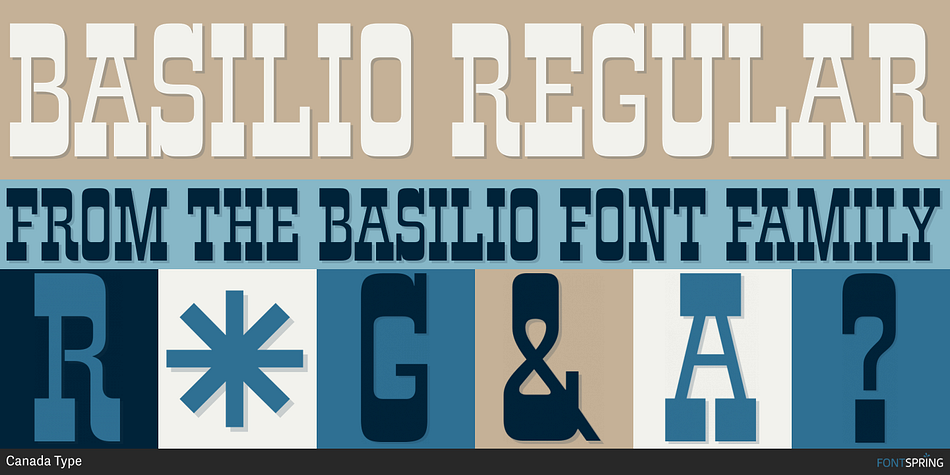
BASILIO REGULAR
Designed by Hans van Maanen and Stefan Schlesinger, Basilio is a western and wood type font published by Canada Type.
In the late 1930s, old Egyptiennes (or Italiennes) returned to the collective consciousness of European printers and type houses — perhaps because political news were front a centre, especially in France where Le Figaro newspaper was seeing record circulation numbers. In 1939 both Monotype and Lettergieterij Amsterdam thought of the same idea: Make a new typeface similar to the reverse stress slab shapes that make up the titles of newspapers like Le Figaro and Le Frondeur.
Both foundries intended to call their new type Figaro. Monotype finished theirs first, so they ended up with the name, and their type was already published when Stefan Schlesinger finished his take for the Amsterdam foundry. Schlesinger’s type was renamed Hidalgo (Spanish for a lower nobleman, ‘son of something’) and published in 1940 as ‘a very happy variation on an old motif’. Although it wasn’t a commercial success at the time, it was well received and considered subtler and more refined than the similar types available, Figaro and Playbill. In the Second World War, the Germans banned the use of the type, and Hidalgo never really recovered.
Upon closer inspection, Schlesinger’s work on Hidalgo was much more Euro-sophisticated and ahead of its time than the too-wooden cut of Figaro and the thick tightness of Playbill. It has a modern high contrast, a squarer skeleton, contour cuts that work similarly outside and inside, and airy and minimal solutions to the more complicated shapes like G, K, M, N, Q and W. It is also much more aware of, and more accommodating to, the picket-fence effect the thick top slabs create in setting.
Basilio (named after the signing teacher in Mozart’s Figaro) is the digital revival and major expansion of Hidalgo. With nearly 600 glyphs, it boasts Pan-European language support (most Latin languages, as well as Cyrillic and Greek), and a few OpenType tricks that gel it all together to make a very useful design tool.
Stefan Schlesigner was born in Vienna in 1896. He moved to the Netherlands in 1925, where he worked for Van Houten’s chocolate, Metz department store, printing firm Trio and many other clients. He died in the gas chambers of Auschwitz in 1944. Digital revivals and expansions of two of his other designs, Minuet and Serena, have also been published by Canada Type.